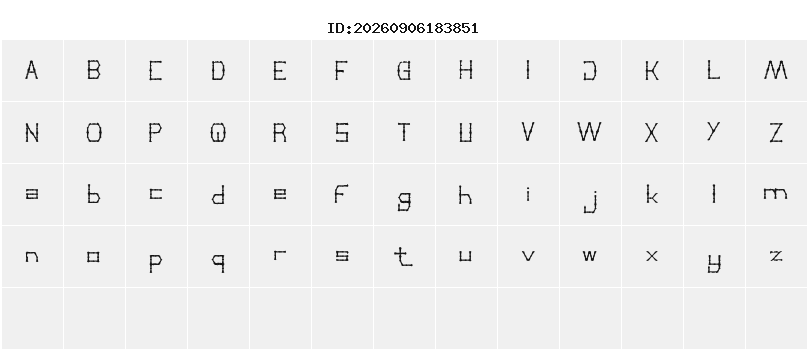
• Font Name: THIN DECORATIVE
THIN DECORATIVE.ttf is a modern, elegant sans-serif font designed for ultimate readability and visual harmony. Perfect for branding, headlines, web design, and print materials.